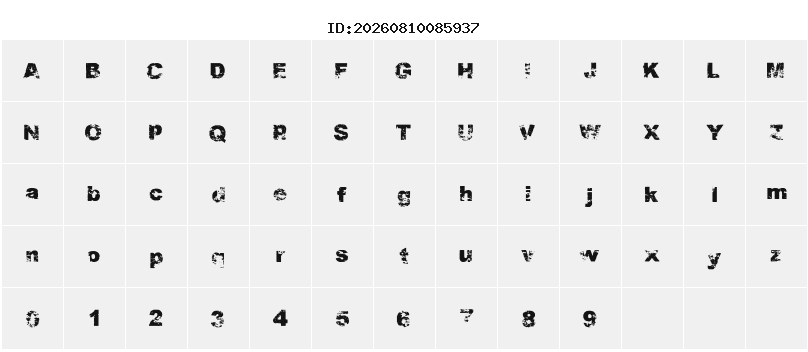
• Font Name: PDRPT
• Font ID: PODREPT
• Full Font Name: PDRPT
• Version: 16/9/2007
• PostScript Name: PDRPT
About PDRPT.ttf
PDRPT.ttf is a modern, elegant sans-serif font designed for ultimate readability and visual harmony. Perfect for branding, headlines, web design, and print materials.